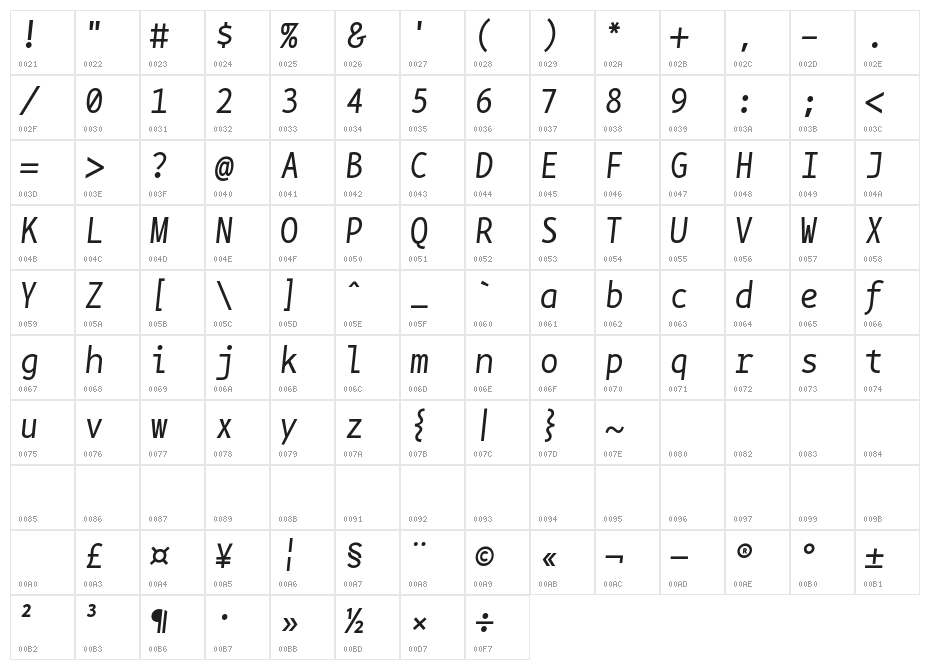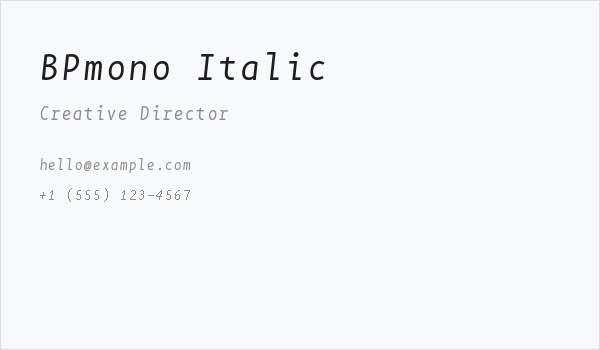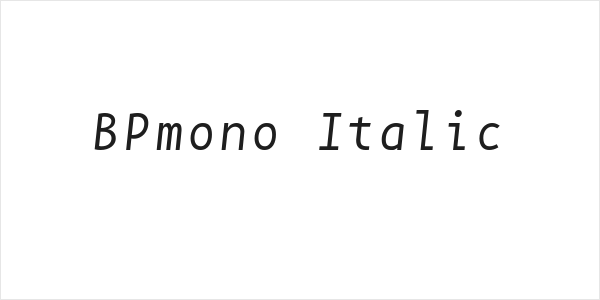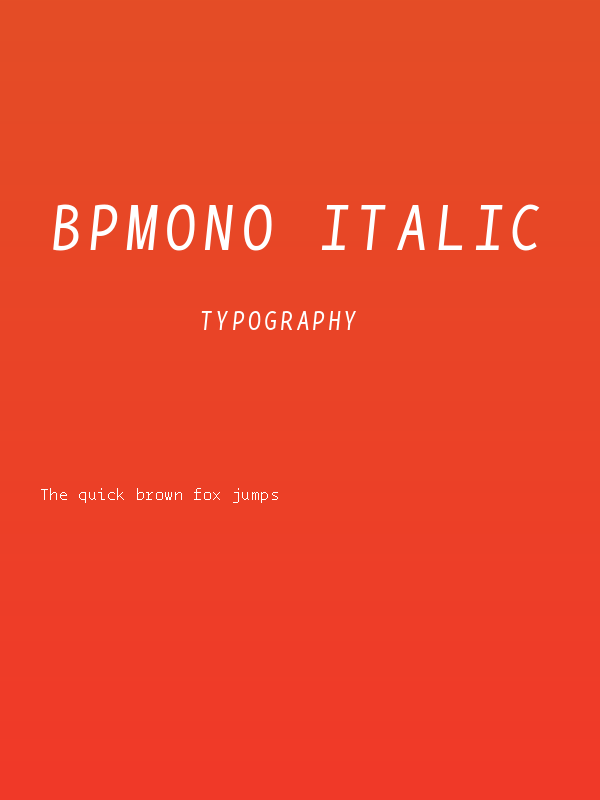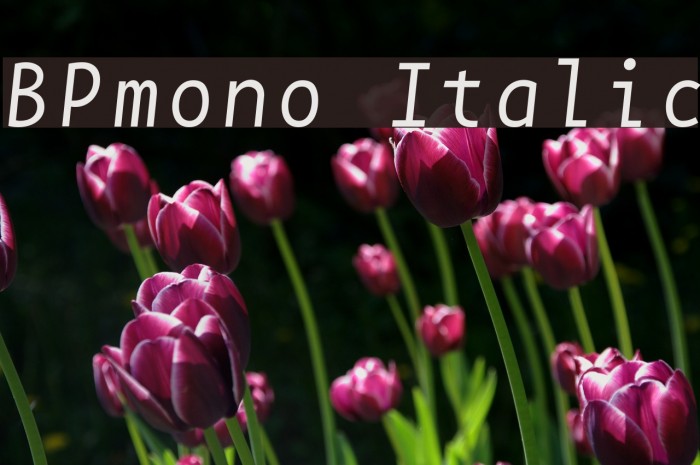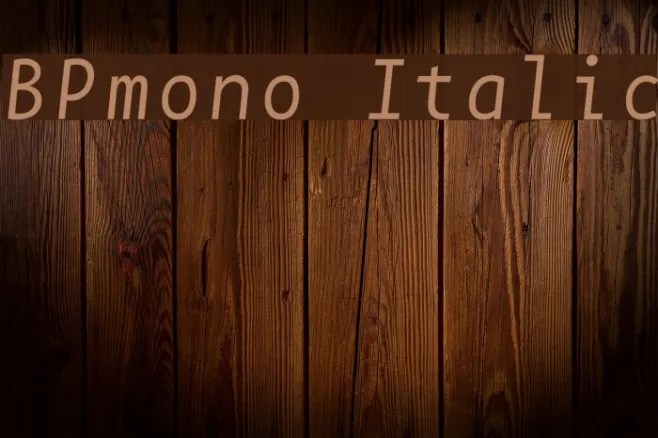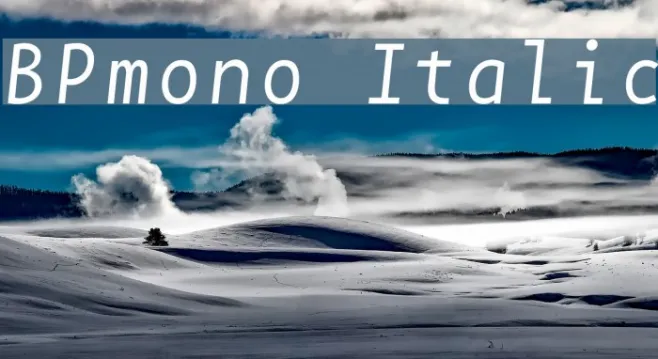
BPmono Italic Font
BPmono Italic Description
This font exhibits a clean, modern monospaced style with an italic slant, providing a dynamic yet structured appearance. Each character maintains equal width, ensuring consistent alignment, which is ideal for coding and tabular data. The italic angle adds a touch of elegance and movement, making it suitable for creative projects that require a technical yet stylish look. The font features a medium contrast in stroke thickness, offering readability without sacrificing its contemporary aesthetic. The character spacing is normal, allowing for clear distinction between each letter and symbol.
| Use Case | Coding, Technical documentation, Creative projects |
| Proposed Projects | Ideal for coding environments, technical documentation, and creative digital designs. |